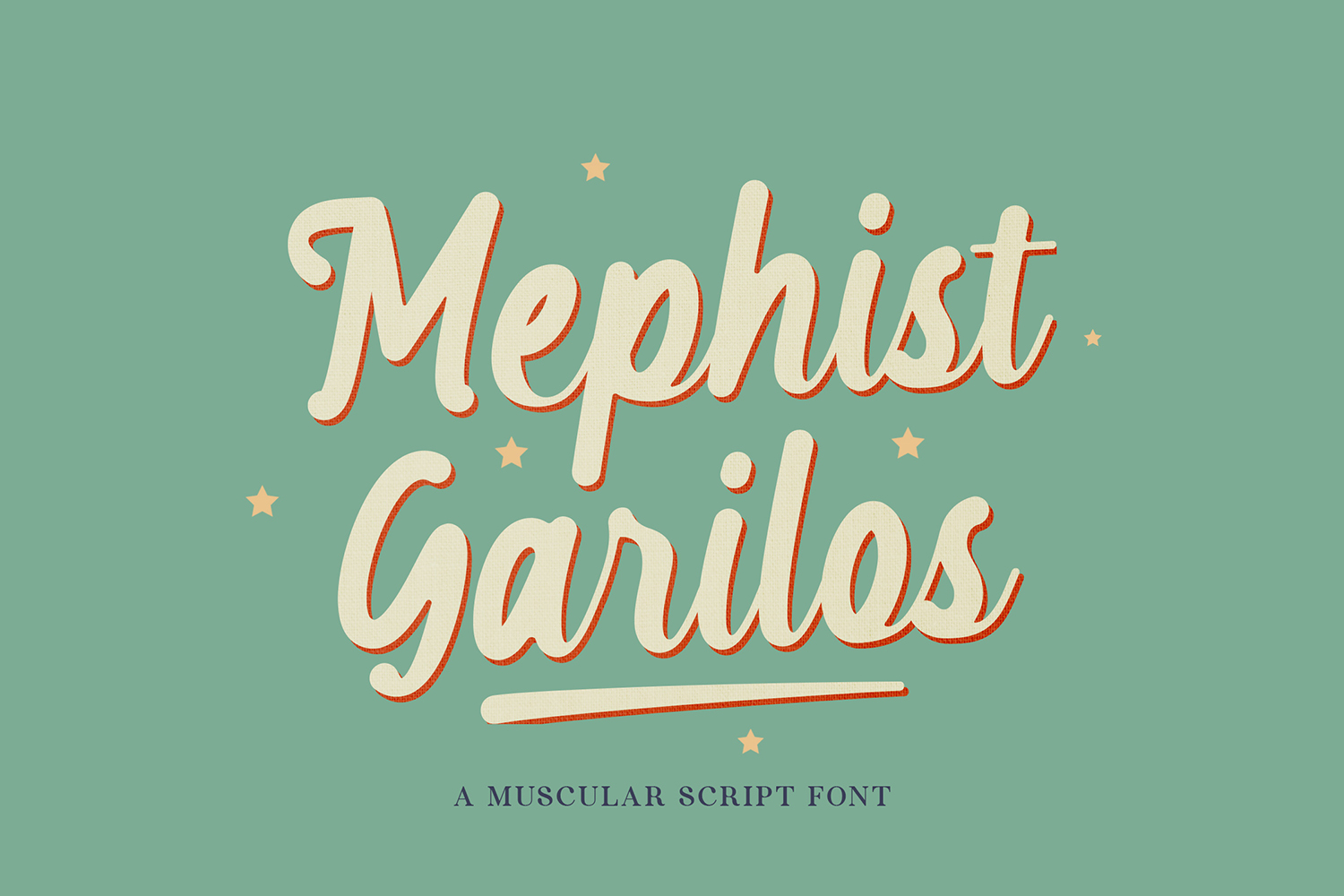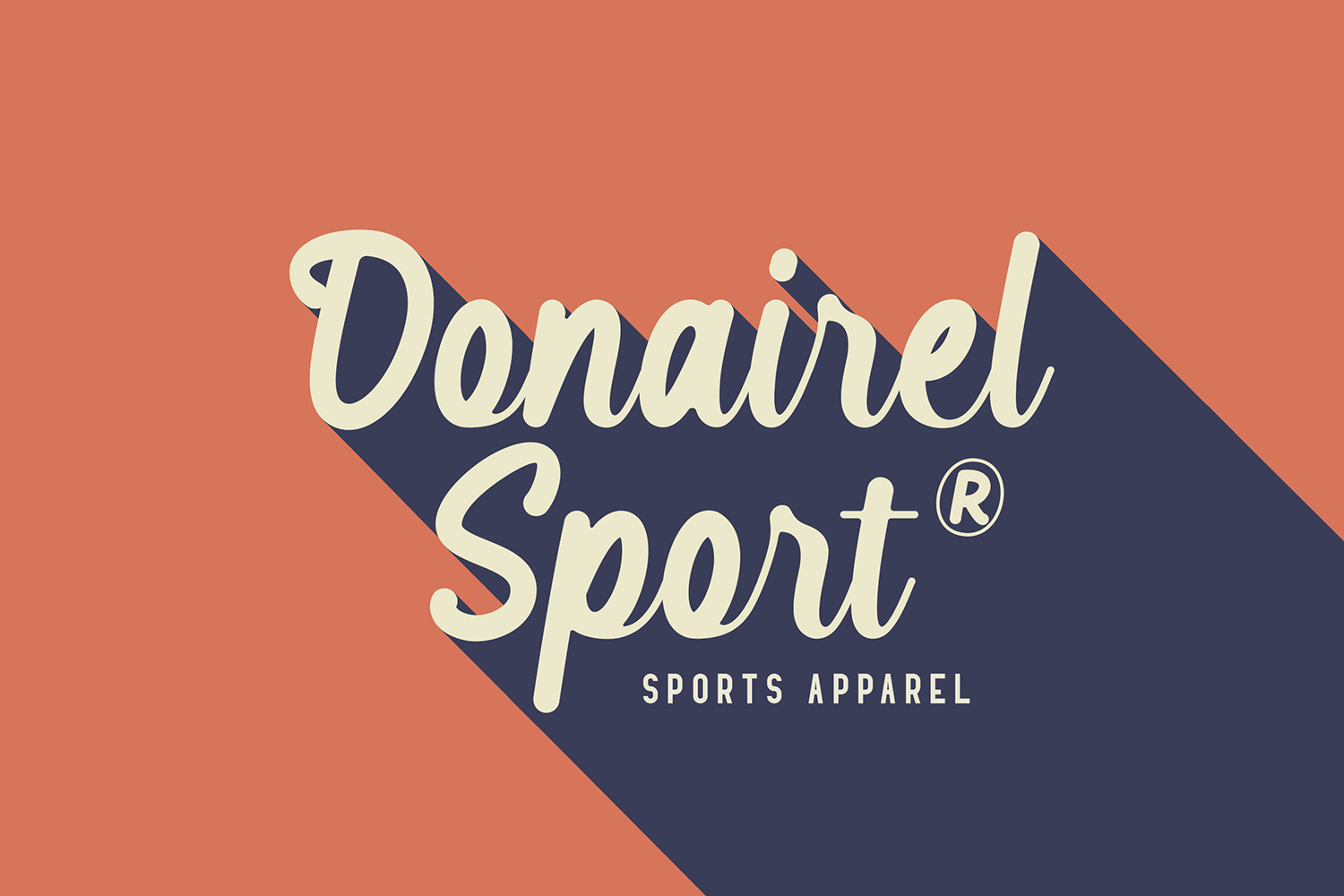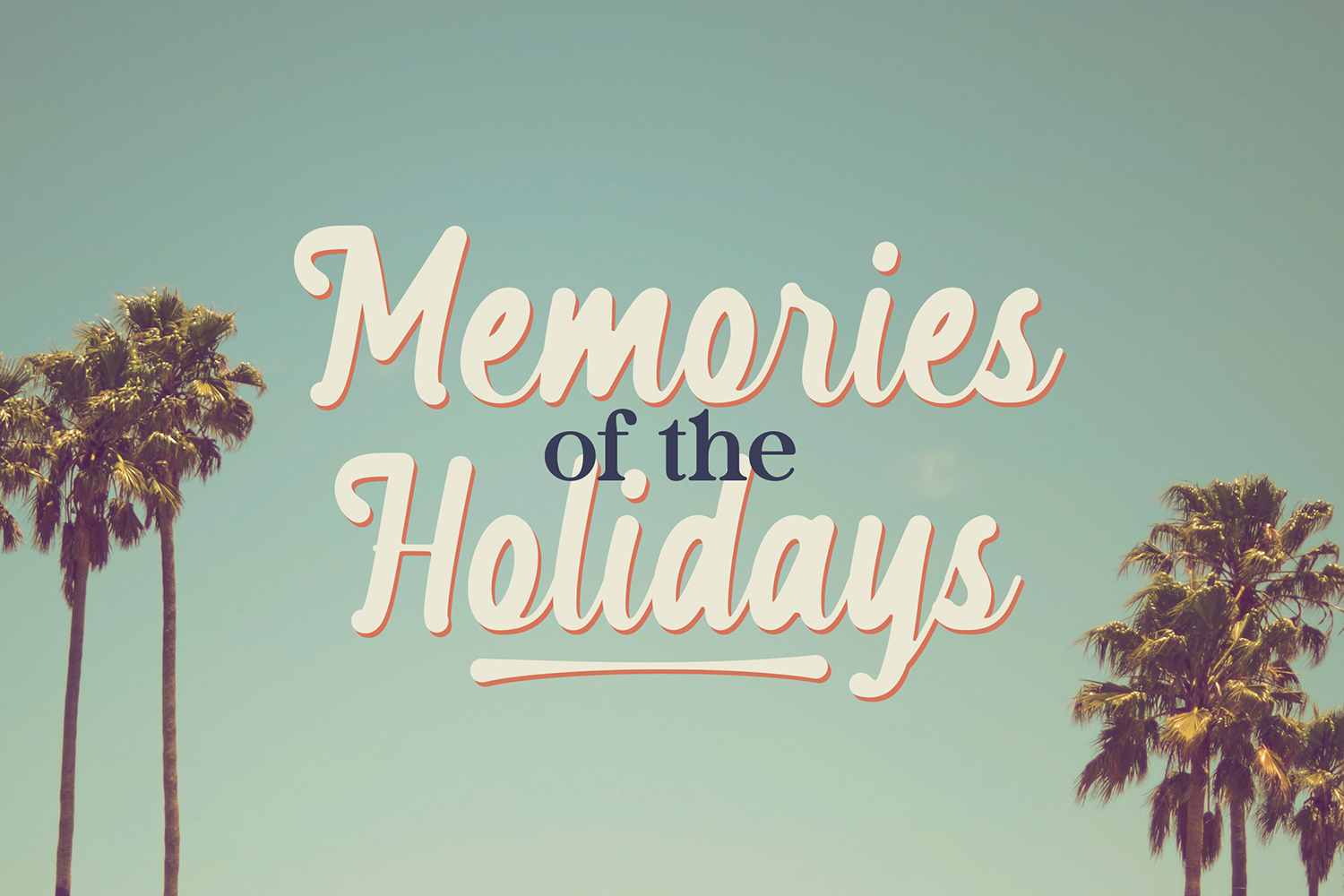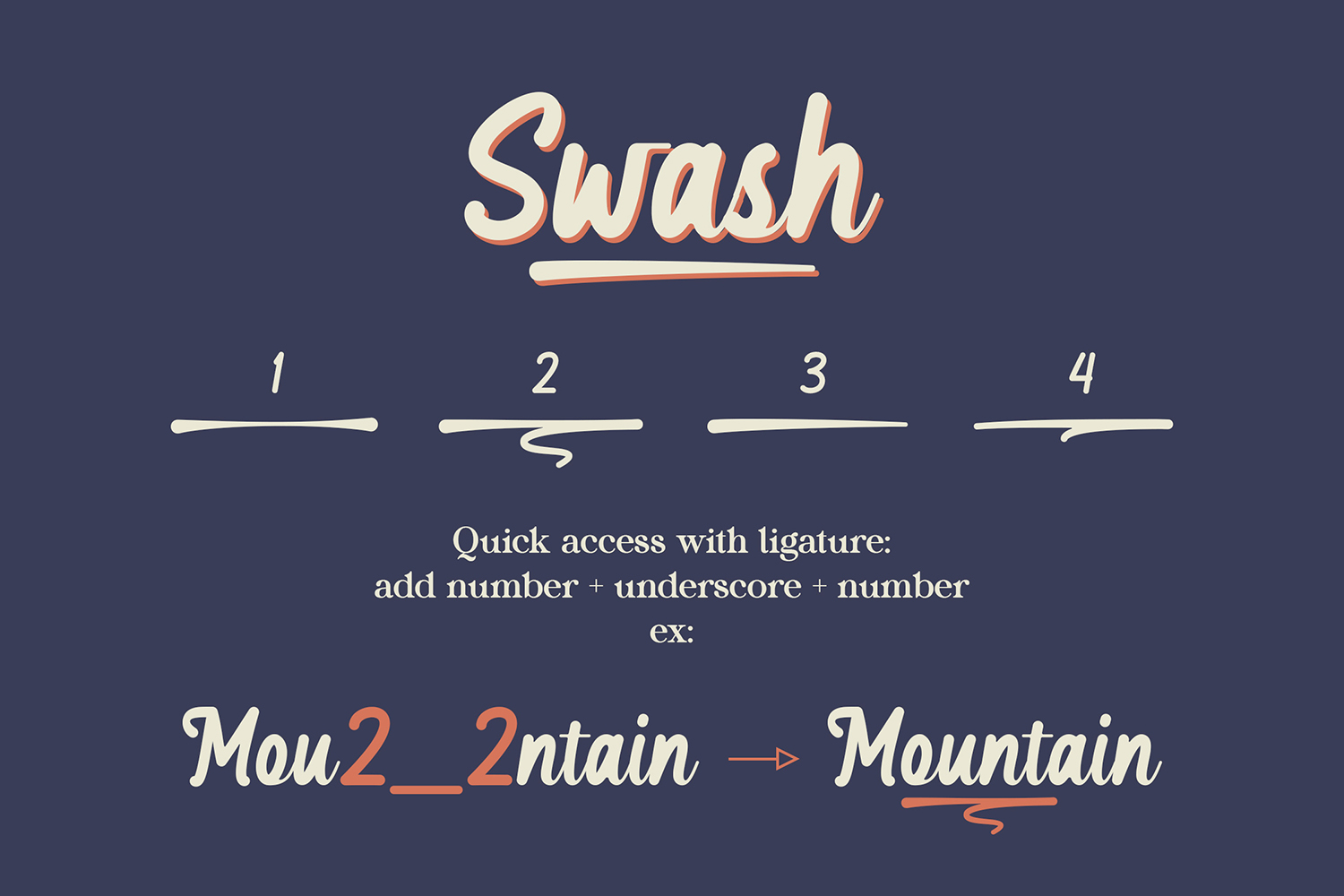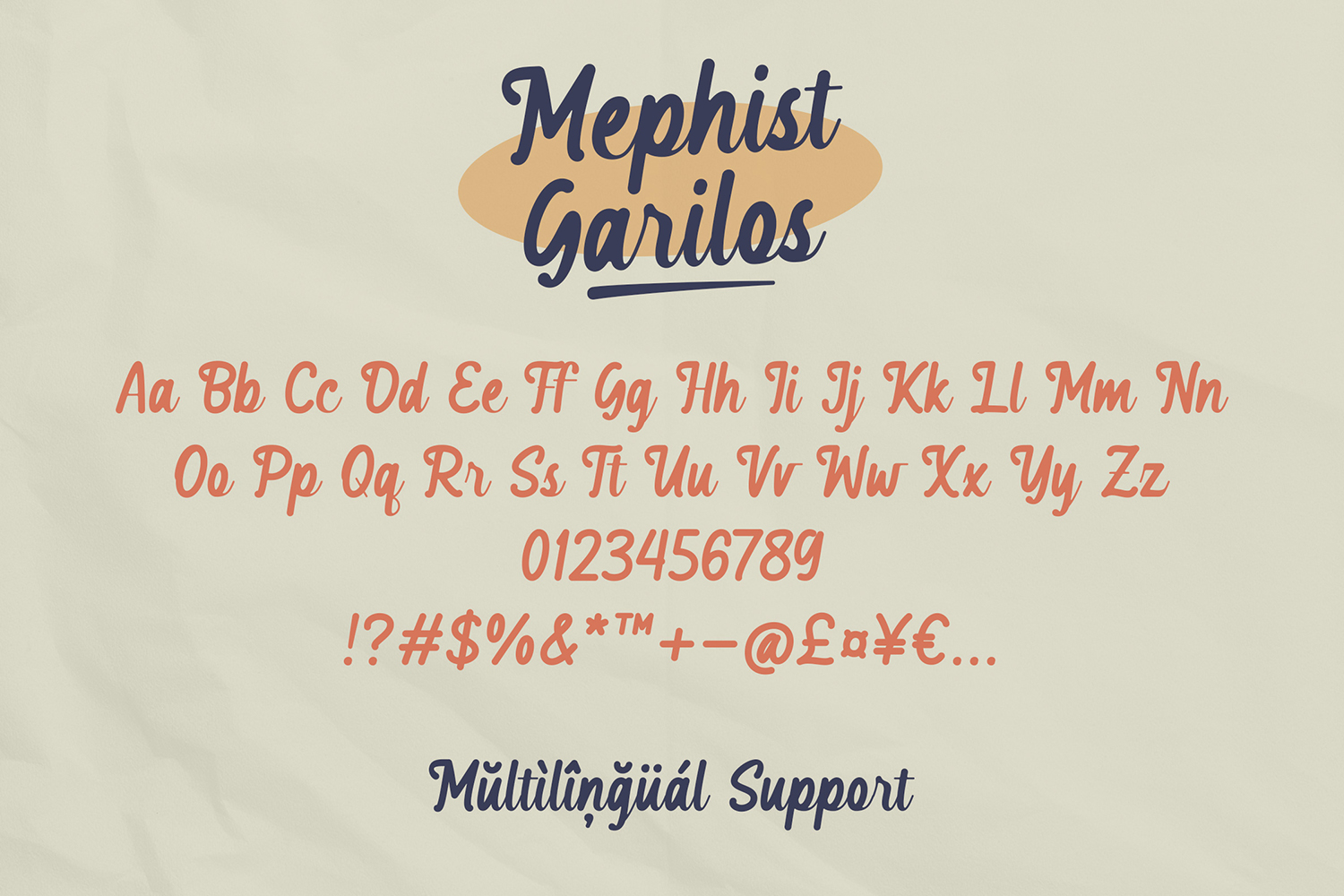
Mephist Garilos Free Font
Mephist Garilos Free Font is a muscular script font. Use it to add that special retro touch to any design idea! It is perfect for many different projects such as logos & branding, product designs, labels, and much more.